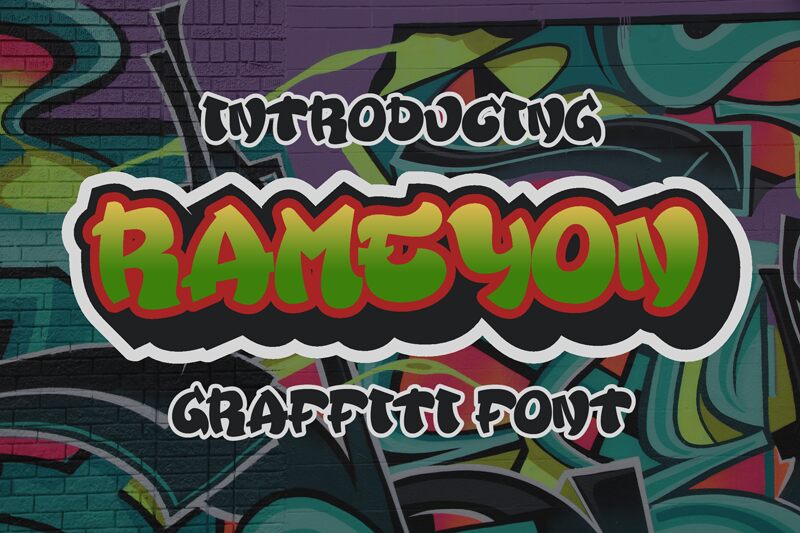
Rameyon, a distinctive creation by Ahwe Project, bursts onto the scene with its extra-bold graffiti style that encapsulates the vibrant energy of street art. This font's aesthetic appeal lies in its raw and expressive strokes that mimic the swift hand of a graffiti artist, making each character leap off the page with life and movement. Its exaggerated forms and dynamic flow give it an edgy, contemporary look that can infuse any project with character.
The Rameyon font is more than just a typographic choice; it's a statement. With its robust weight and attention-grabbing presence, it stands out as an ideal candidate for projects requiring a touch of urban flair-from bold branding initiatives to eye-catching posters and dynamic digital content. Unleash Rameyon's potential to inject your creative endeavors with an authentic streetwise charm that resonates with today’s design trends.